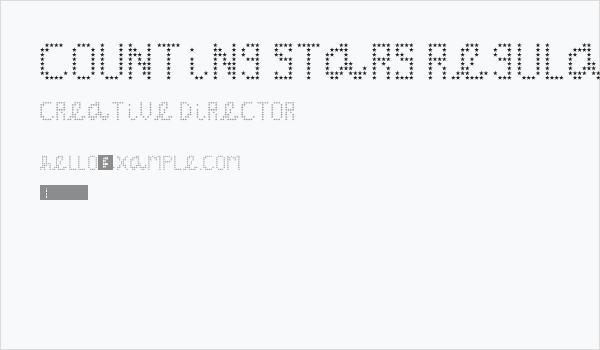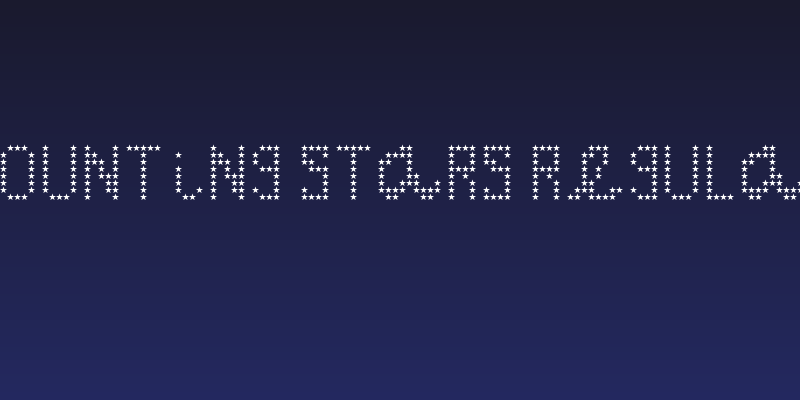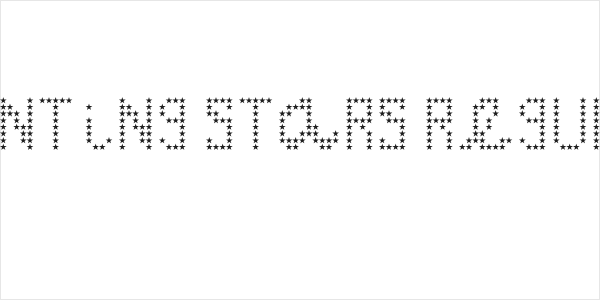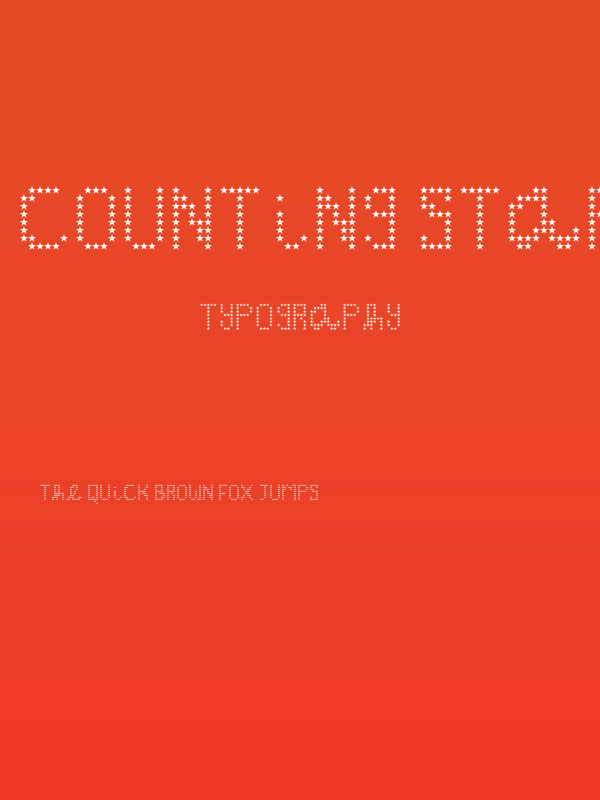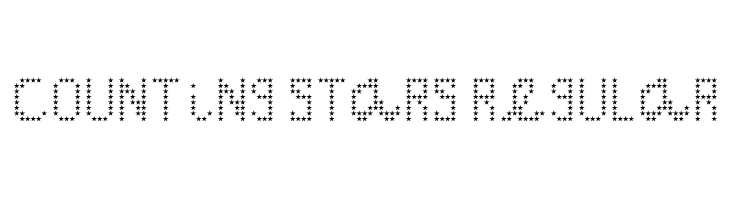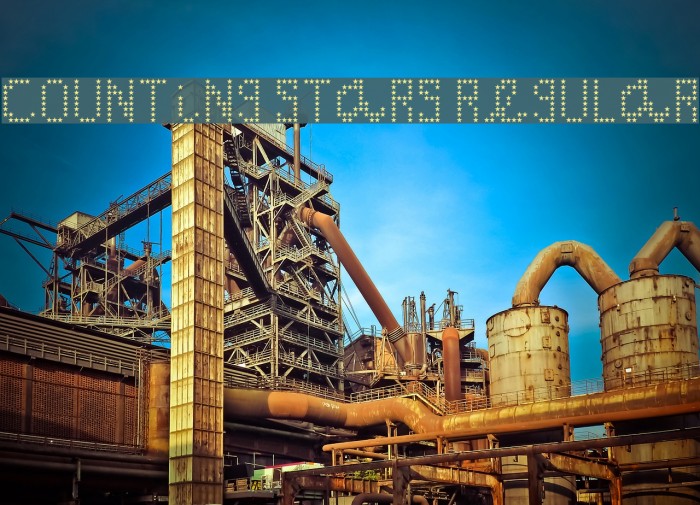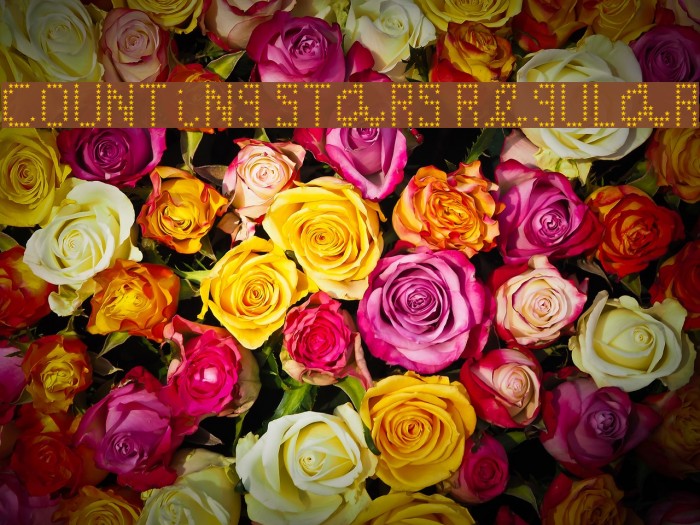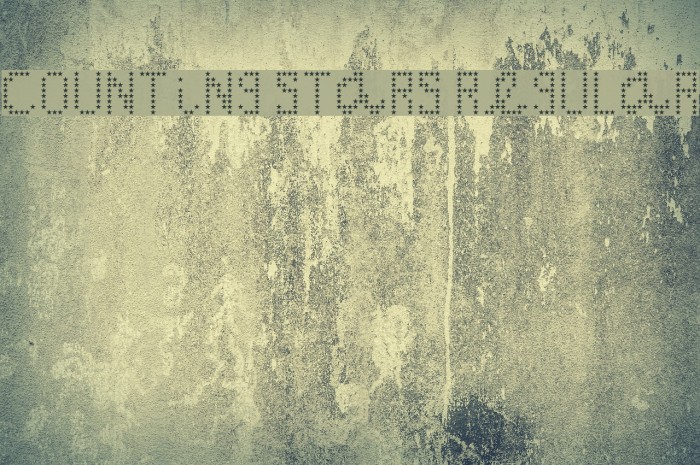
Counting Stars Regular Font
Counting Stars Regular Description
This font features a unique and playful design where each character is composed of small star shapes, creating a dotted effect that is both whimsical and eye-catching. The letters are evenly spaced and maintain a consistent size, giving the font a uniform appearance. The star motif adds a decorative touch, making it ideal for projects that require a fun and creative aesthetic. The overall style is modern and decorative, with a focus on visual appeal rather than readability. This font is particularly suitable for use in headlines, posters, and other display purposes where a bold statement is desired.
| Proposed Projects | Ideal for children's book covers, party invitations, festive banners, and creative posters. |